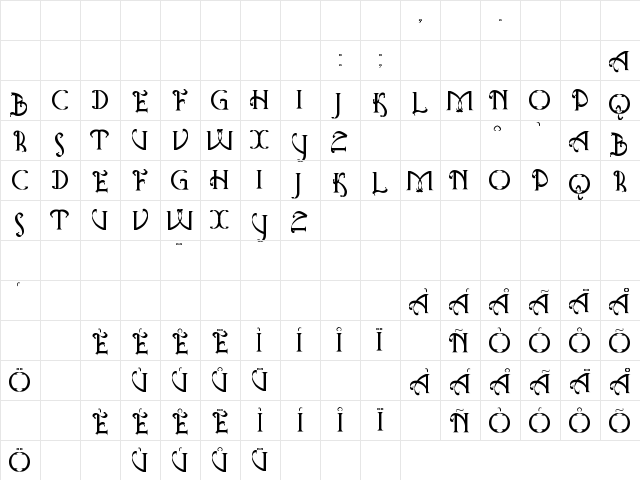
Antique Quest St Regular Free Font
Antique Quest St Regular
Design Context for Antique Quest St
Antique Quest St wears its vintage influences proudly, with letterforms that recall mid-century signage, classic packaging, and nostalgia-driven design.
Font Pairing: Combine Antique Quest St with a simple slab or neutral sans - period-accurate companions reinforce the vintage feel without competing for attention.
Pro Tip: Lean into Antique Quest St's period character by pairing it with aged paper textures, muted colour palettes, and vintage illustration styles.